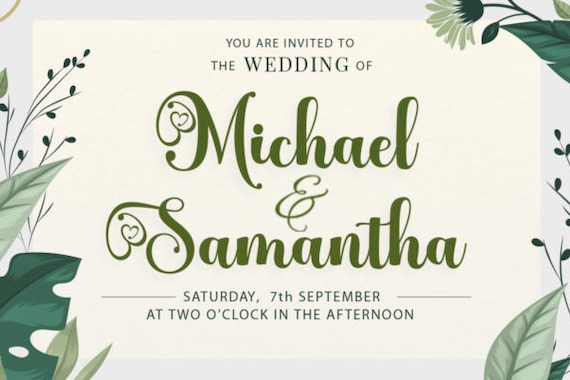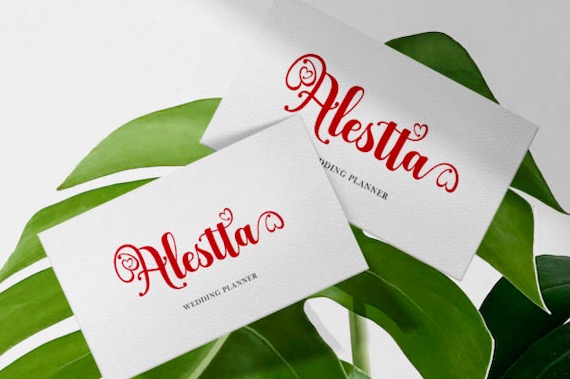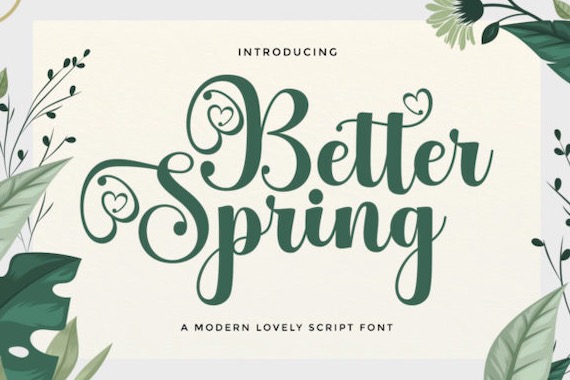
This Better Spring Font is a subtle and great handwritten script font that was created and shared by LetterFreshStudio along with great care for maximum results. It will add elegance and class to any of your design projects. This font is PUA encoded which means you can access all of the glyphs and swashes with ease.
Better Spring Script Font
Publisher: LetterFresh Studio